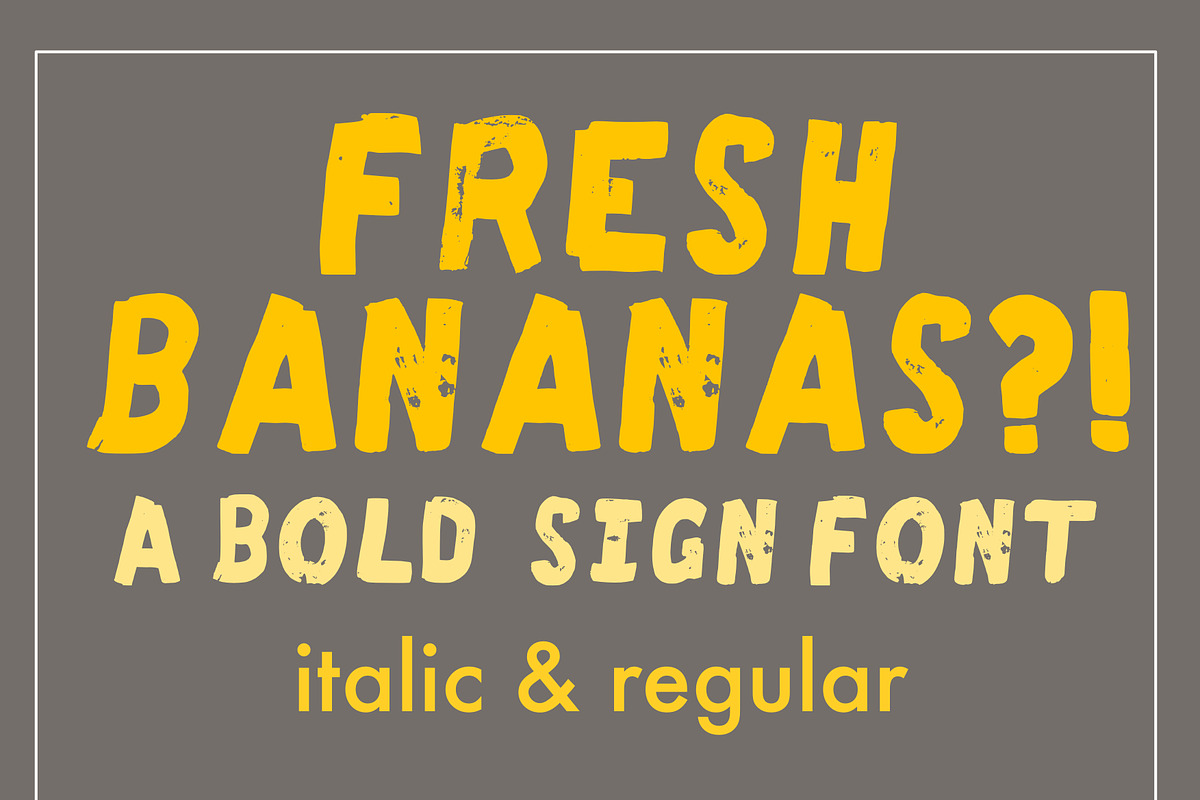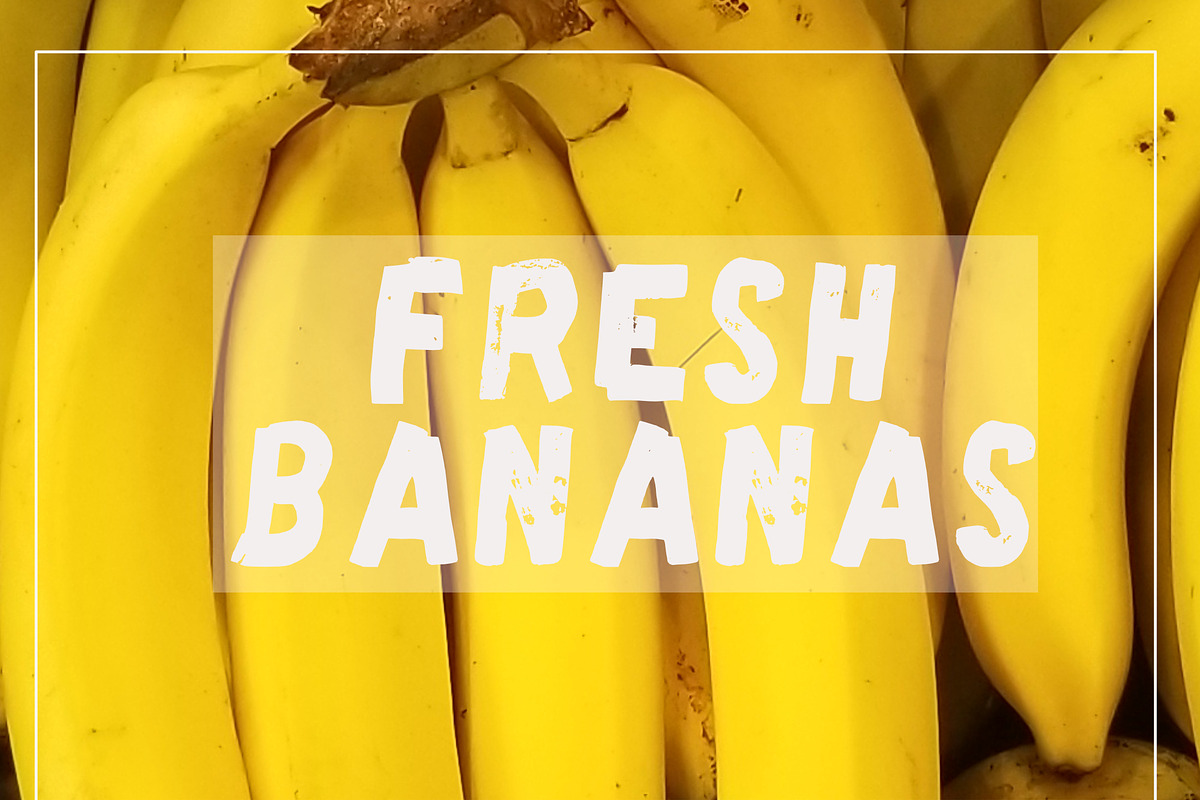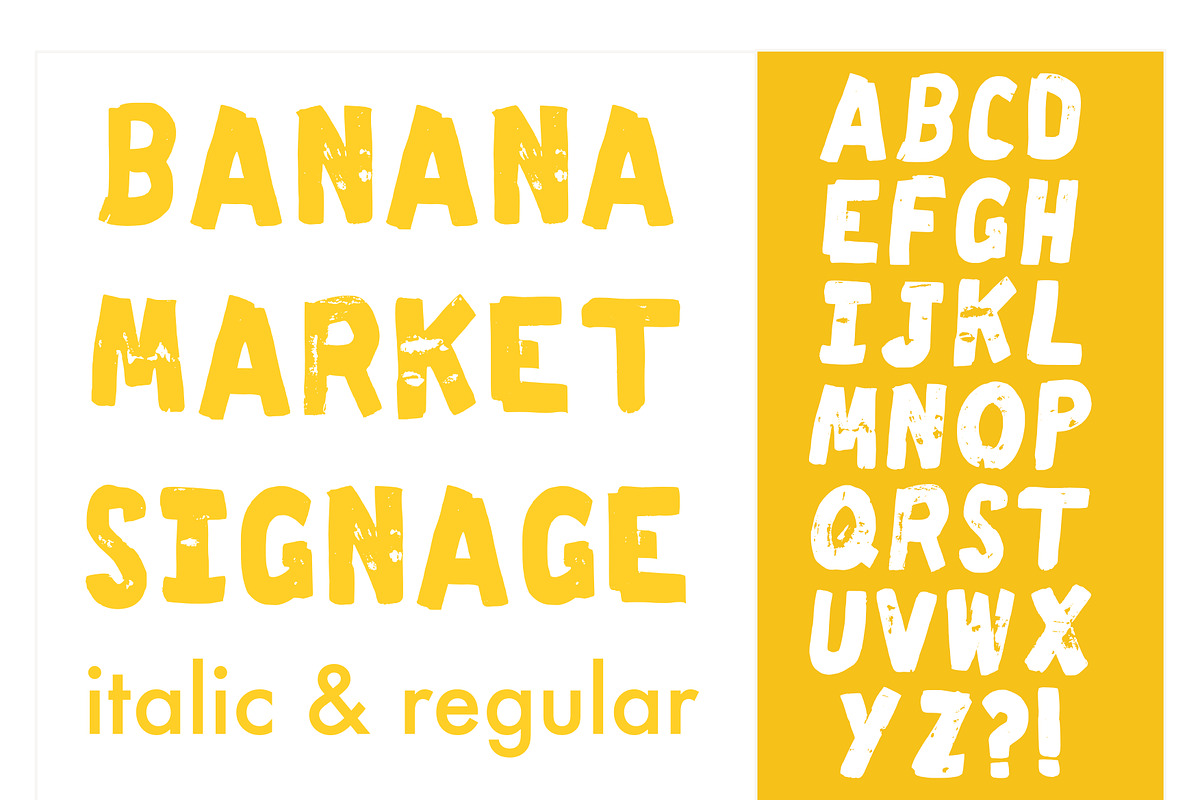
Fresh Bananas Hand Drawn Font
Please enjoy my new font, "fresh bananas" - a simple, fun bold hand drawn display font inspired by market signs and a trip to Hawaii.